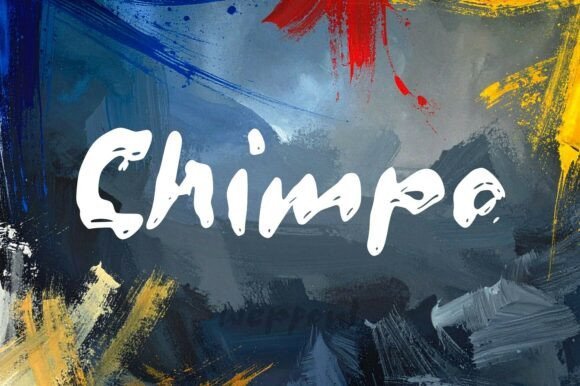
Unleashing Raw Energy: The Allure of Chimpo Font
As a designer, have you ever found yourself searching for the perfect font to capture the essence of a bold, urban concept? Perhaps you’re working on a project that requires a font that embodies the spirit of street art, music, or thrill-seeking sports. If so, you’re in luck because we’re about to introduce you to a game-changer: Chimpo, a vibrant and tactile brush font that’s overflowing with raw, urban energy.
Chimpo Font is more than just a font – it’s an experience. Its authentic brush strokes and unique imperfections give birth to a fervent, animated ambiance that’s sure to captivate your audience. Whether you’re designing a logo, a website, or a social media campaign, Chimpo is the perfect choice for any project that requires an edgy, artistic touch.
Key Features of Chimpo Font
- Unique Characteristics: The font features a unique blend of bold and playful strokes, making it perfect for creating eye-catching headlines and titles.
Chimpo Font Review
Overall, I’d say the Chimpo Font is an interesting addition to any design project. ✨ Its bold and playful nature makes it perfect for eye-catching headlines and titles. I love how it adds a bit of edginess to any design without feeling too over-the-top.
Here are some specific things that I think work well with the Chimpo Font:
- Its versatility in terms of font size and weight, making it easy to use in various design contexts.
- The font’s ability to add a touch of whimsy and personality to any project, perfect for creative and artistic endeavors.
- The clear and legible nature of the font, even at smaller sizes.
However, there are some limitations to the Chimpo Font that I’d like to mention:
- It may not be the best choice for body text, as it can be a bit too bold and overwhelming for larger blocks of text.
- The font may not be suitable for formal or professional projects, as it has a somewhat playful and casual tone.
- The font’s bold nature may not be ideal for projects where subtlety and restraint are necessary.
- ⚠️ It may not be easily readable on certain screens or devices, due to its unique design.
Overall, I think the Chimpo Font is a great choice for designers looking to add a bit of flair and personality to their projects. Just be mindful of its limitations and use it in the right context.
Tips for Getting the Most Out of Chimpo Font
To get the most out of Chimpo Font, use it in bold or italic styles to add emphasis to your text. You can also use it in combination with other fonts to create a unique visual effect.
For best results, use Chimpo Font in headings and titles, and pair it with a clear and legible font for body text.
Chimpo Font is suitable for various design applications, including:
- Web design and user interface elements
- Print materials, such as brochures and flyers
Alternatives to “Chimpo Font” for Designers
The Great Vibes Font is a modern, elegant script font that is ideal for use in logos, branding, and other design elements where a touch of sophistication is required. It has a more refined and polished look compared to the Chimpo Font, making it suitable for high-end or luxury brands.
Comparison: Great Vibes Font has a more refined and elegant look, while Chimpo Font has a more playful and casual feel.
The Pacifico Font is a beautiful, cursive font that is perfect for use in titles, headings, and other design elements where a sense of relaxation and calmness is desired. It has a more laid-back and casual feel compared to the Chimpo Font, making it suitable for use in beach-inspired or tropical designs.